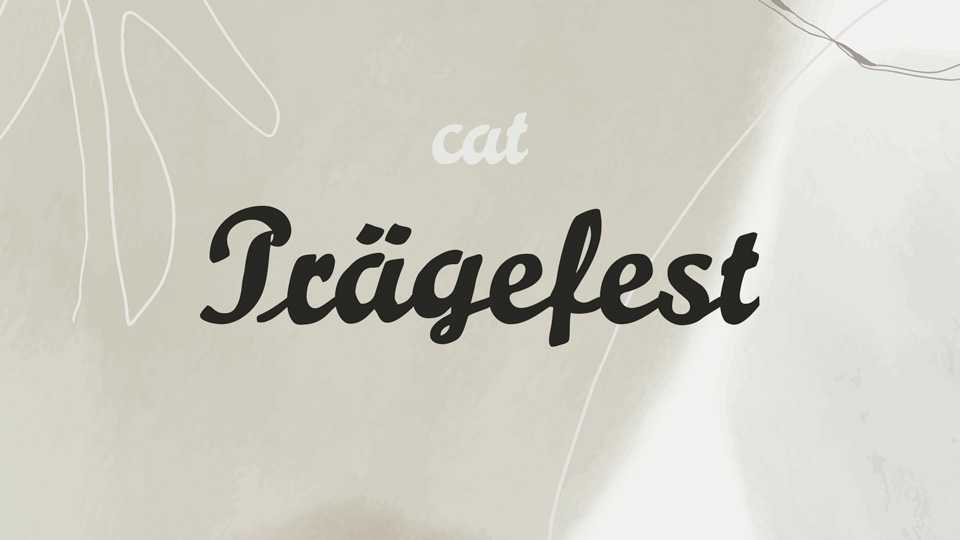
Download Praegefest font, a vintage script inspired by embossed typefaces. In contrast to many other related script fonts, Praegefest had no overhangs that could break off if the letter was pressed too hard.